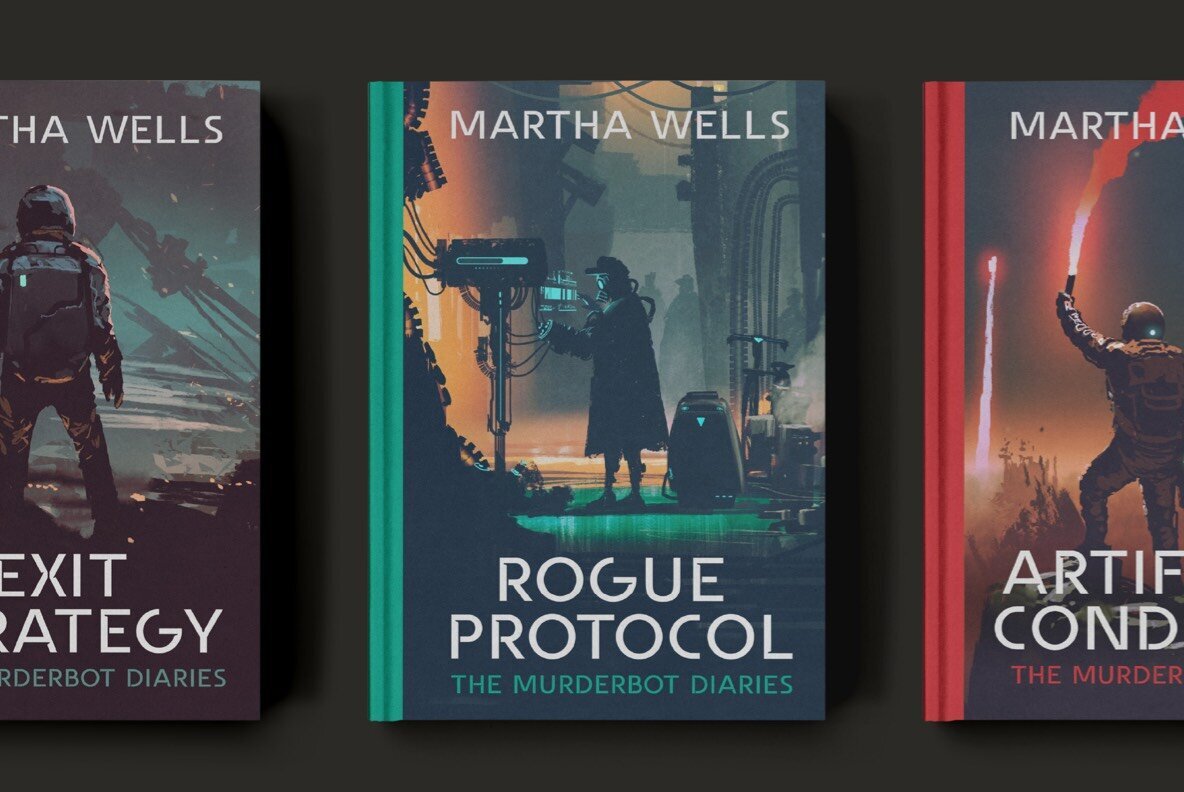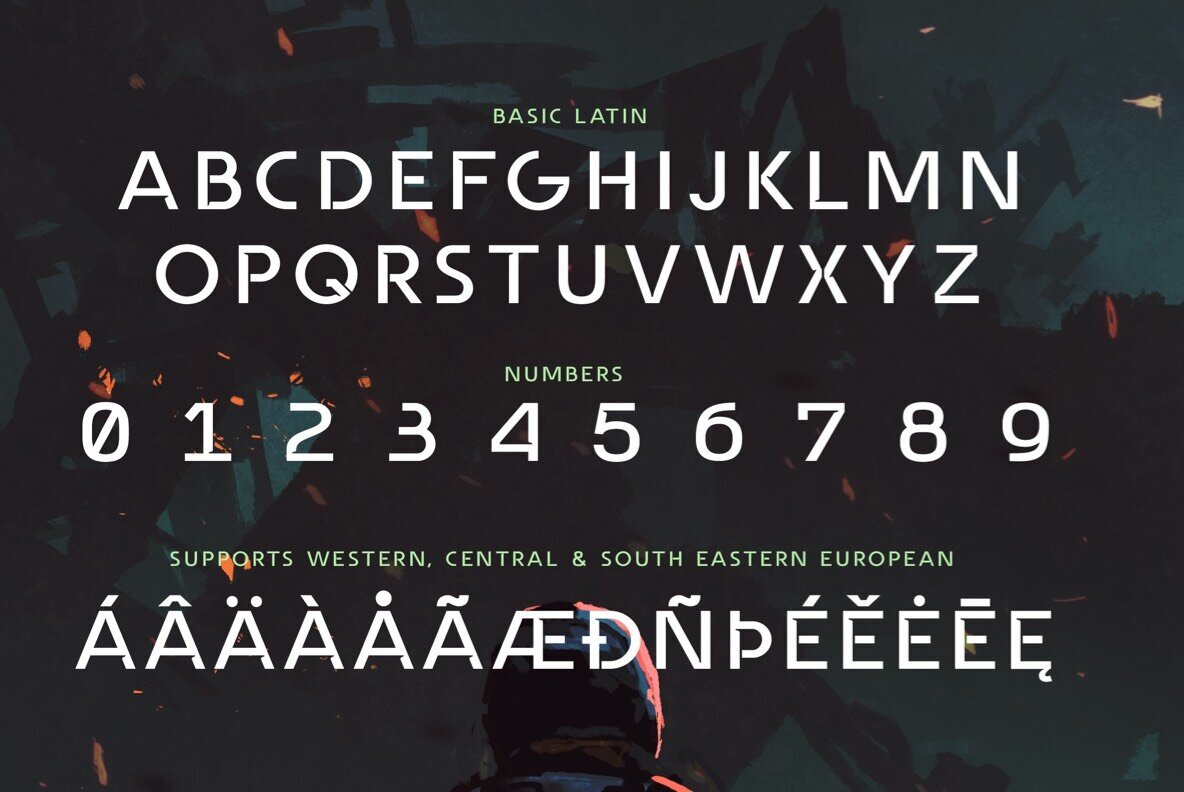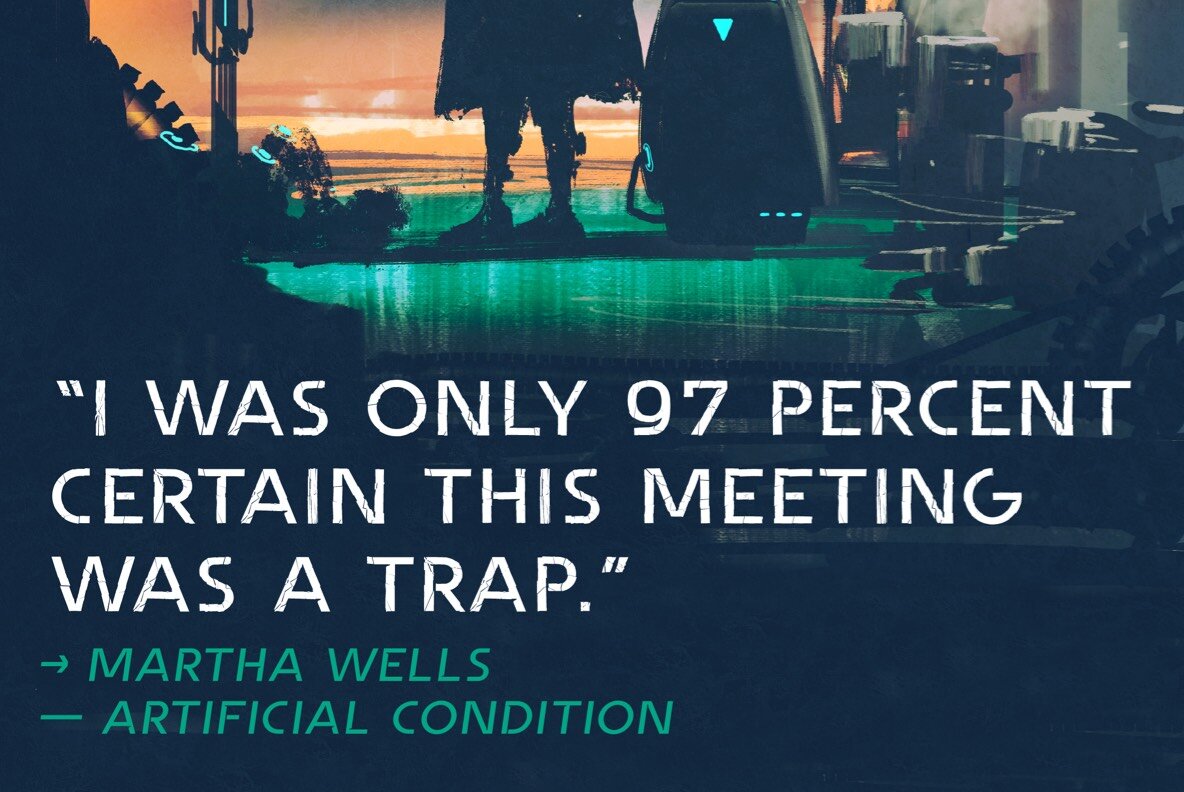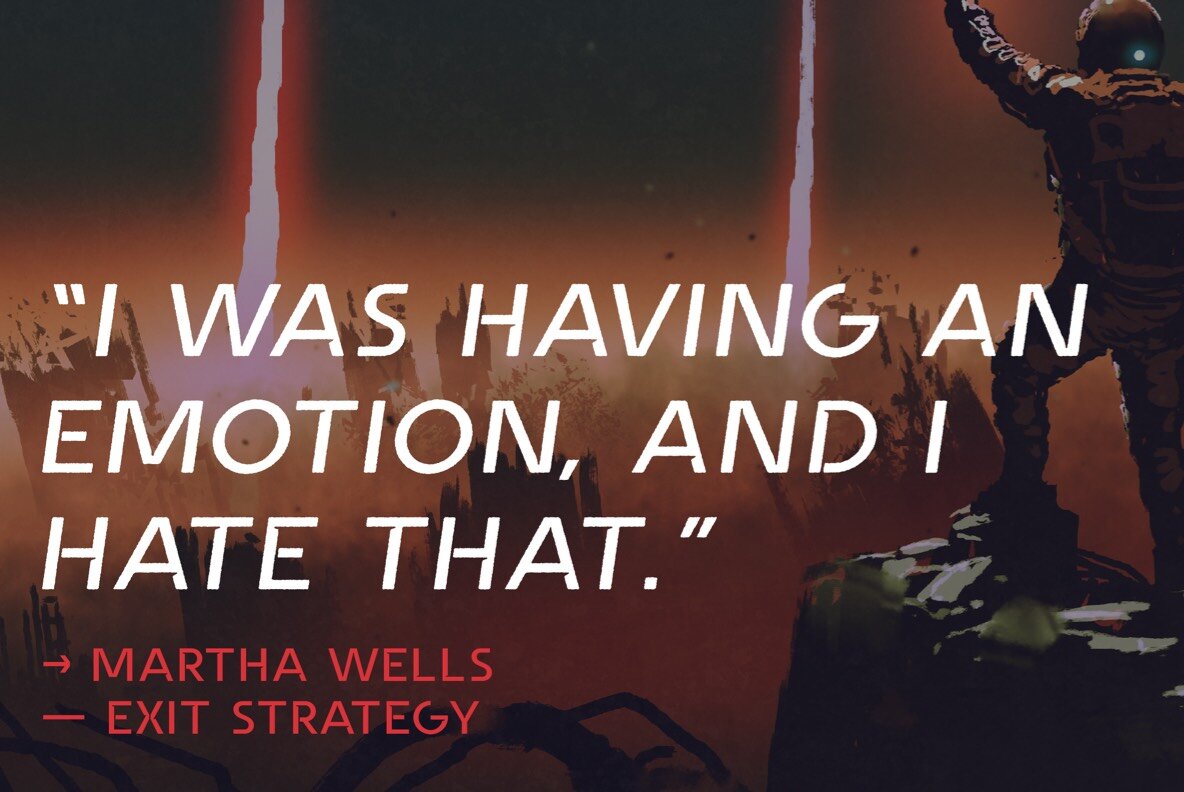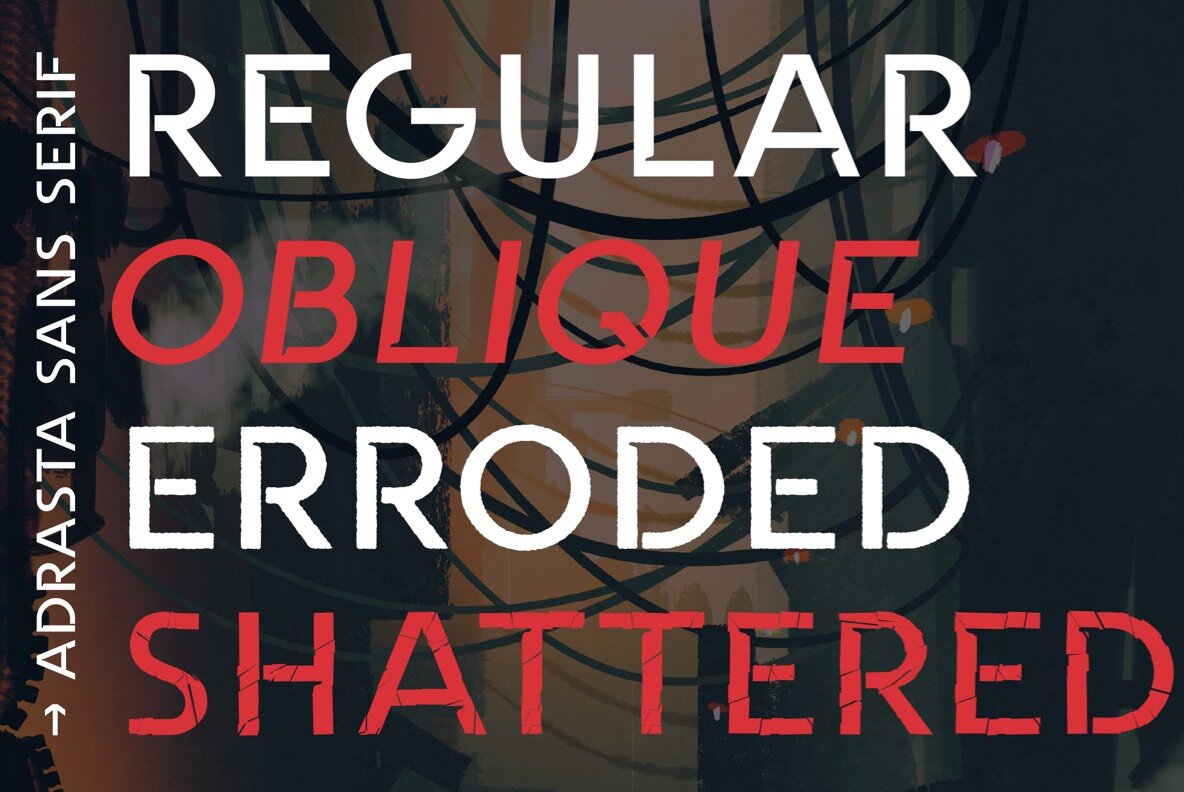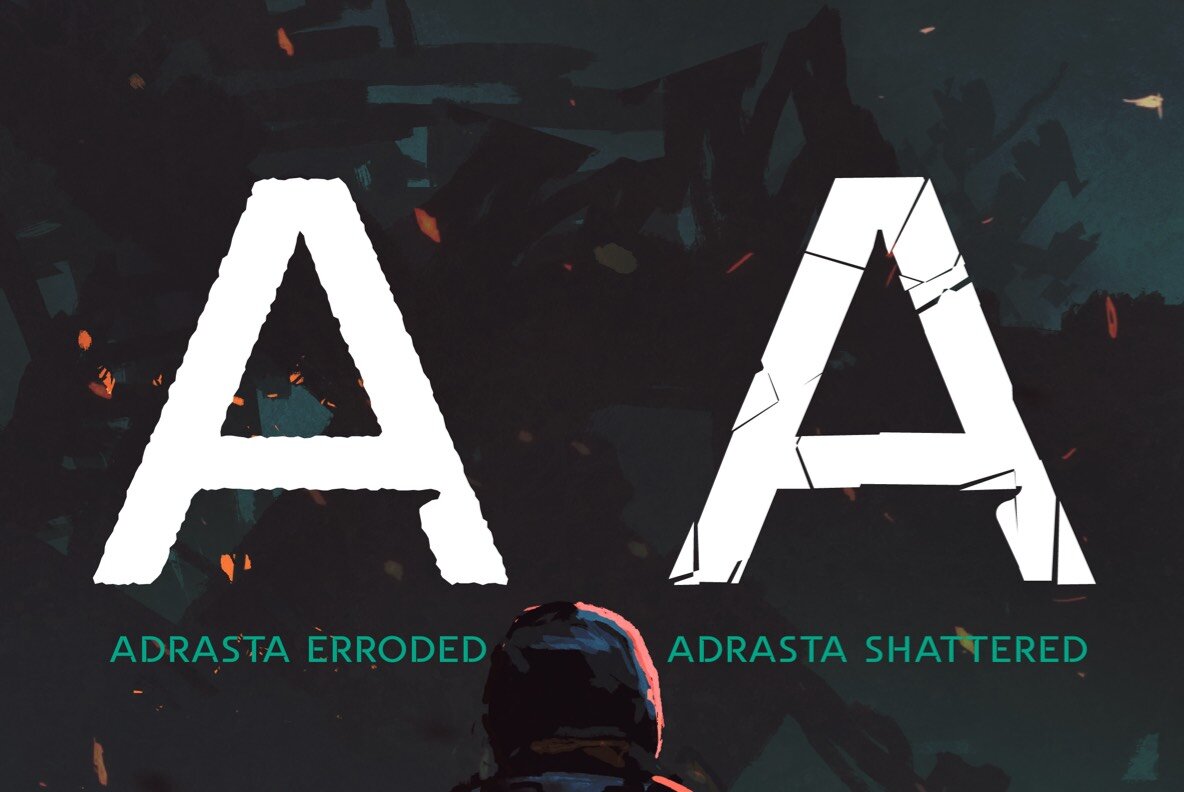
Adrasta Font
Adrasta Regular
Adrasta Oblique
Adrasta Erroded
Adrasta Erroded Oblique
Adrasta Shattered
Adrasta Shattered Oblique
Adrasta is a sans serif font family that consists of six fonts in different styles. It's a bit futuristic with an avant garde feeling and wedges in the letterforms. Well suited for science fiction:y projects or other display uses.